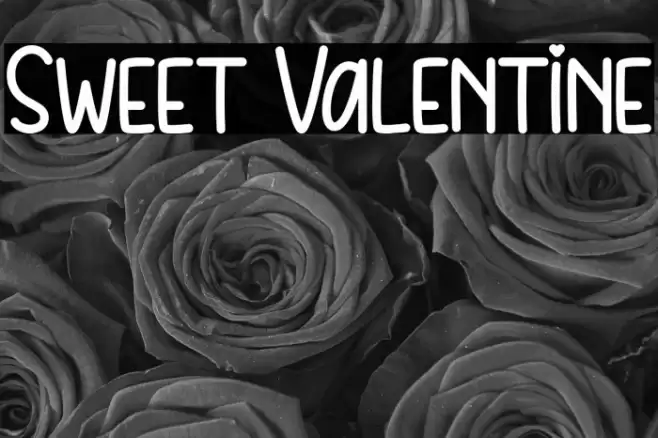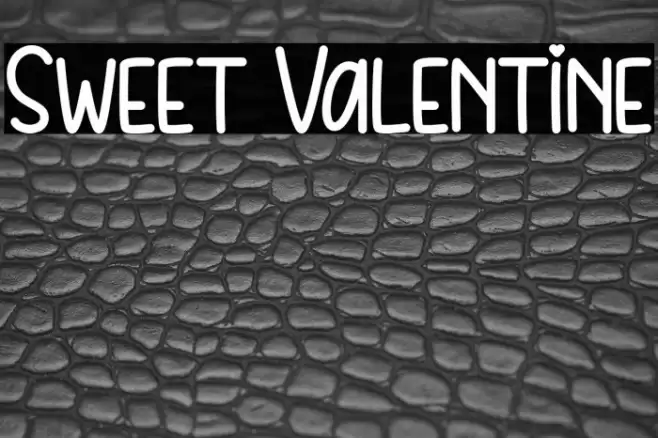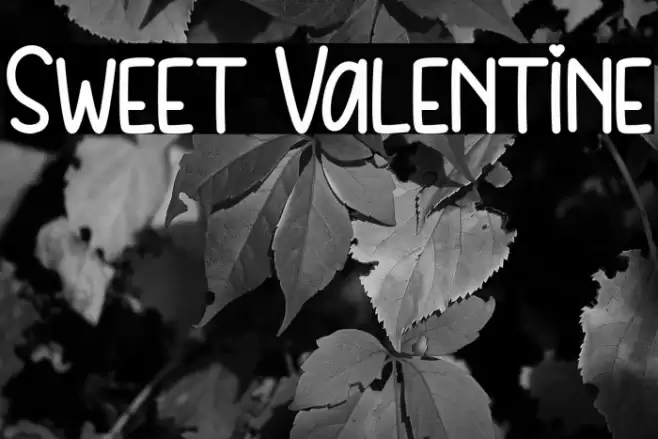
Sweet Valentine Font
Sweet Valentine Description
This playful and charming font features a handwritten style with a whimsical touch. The letters are rounded and smooth, giving a friendly and approachable feel. Notably, the font includes unique heart-shaped dots above the lowercase 'i' and 'j', adding a romantic and fun element. The strokes are consistent in width, providing a uniform appearance across all characters. The font maintains a balance between casual and decorative, making it versatile for various creative projects.
A playful handwritten font with heart-shaped dots and smooth, rounded letters from Regular fonts.